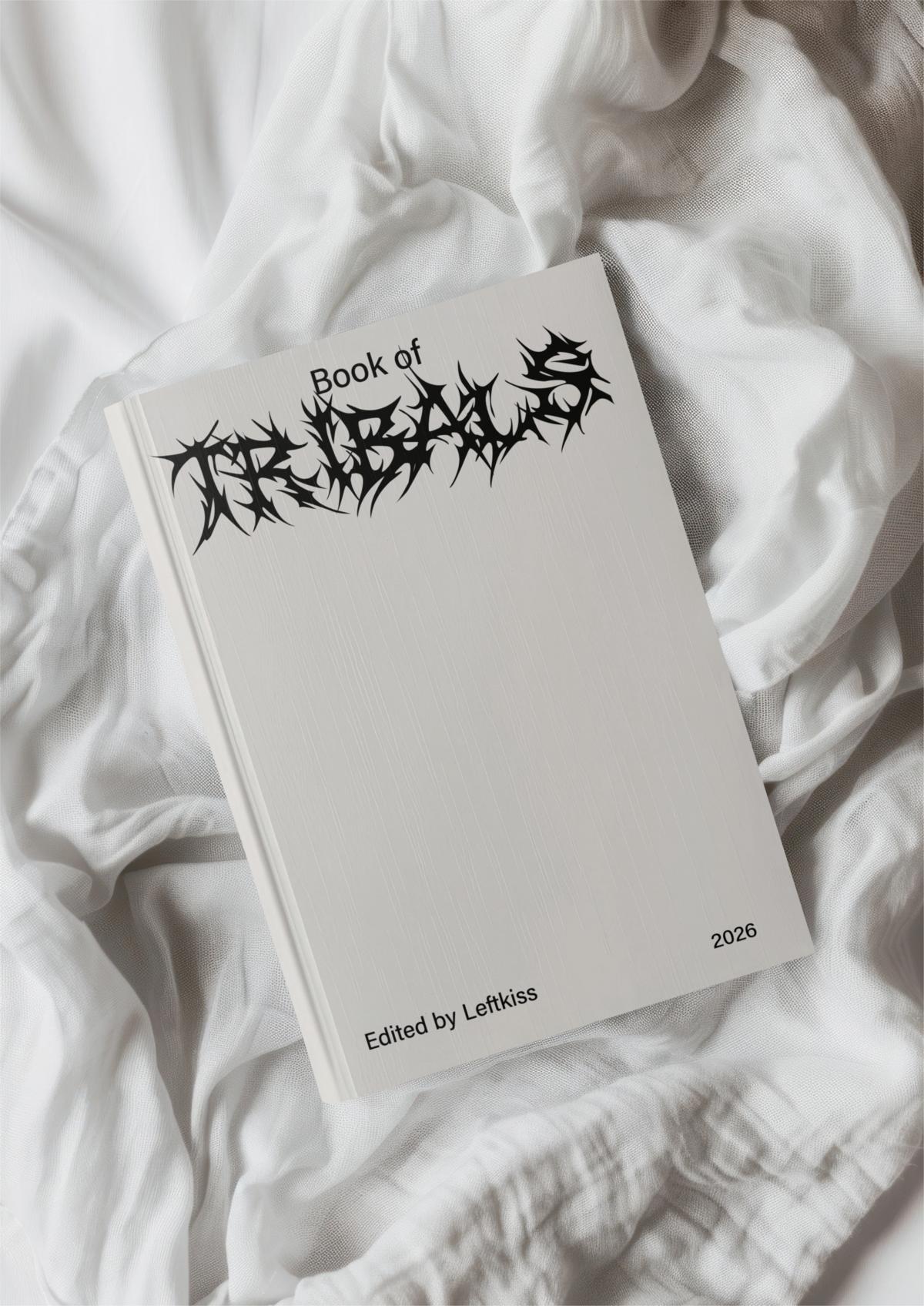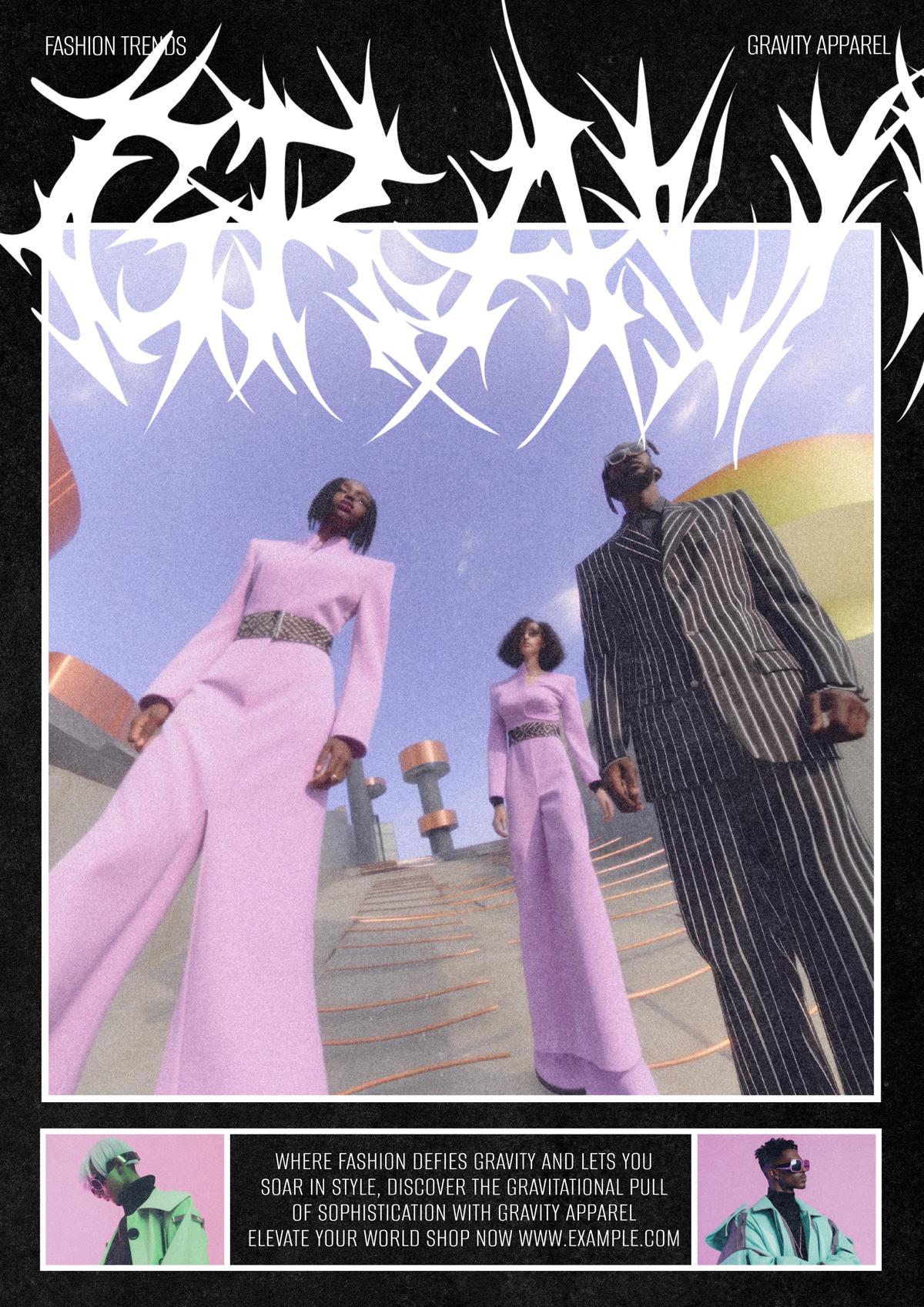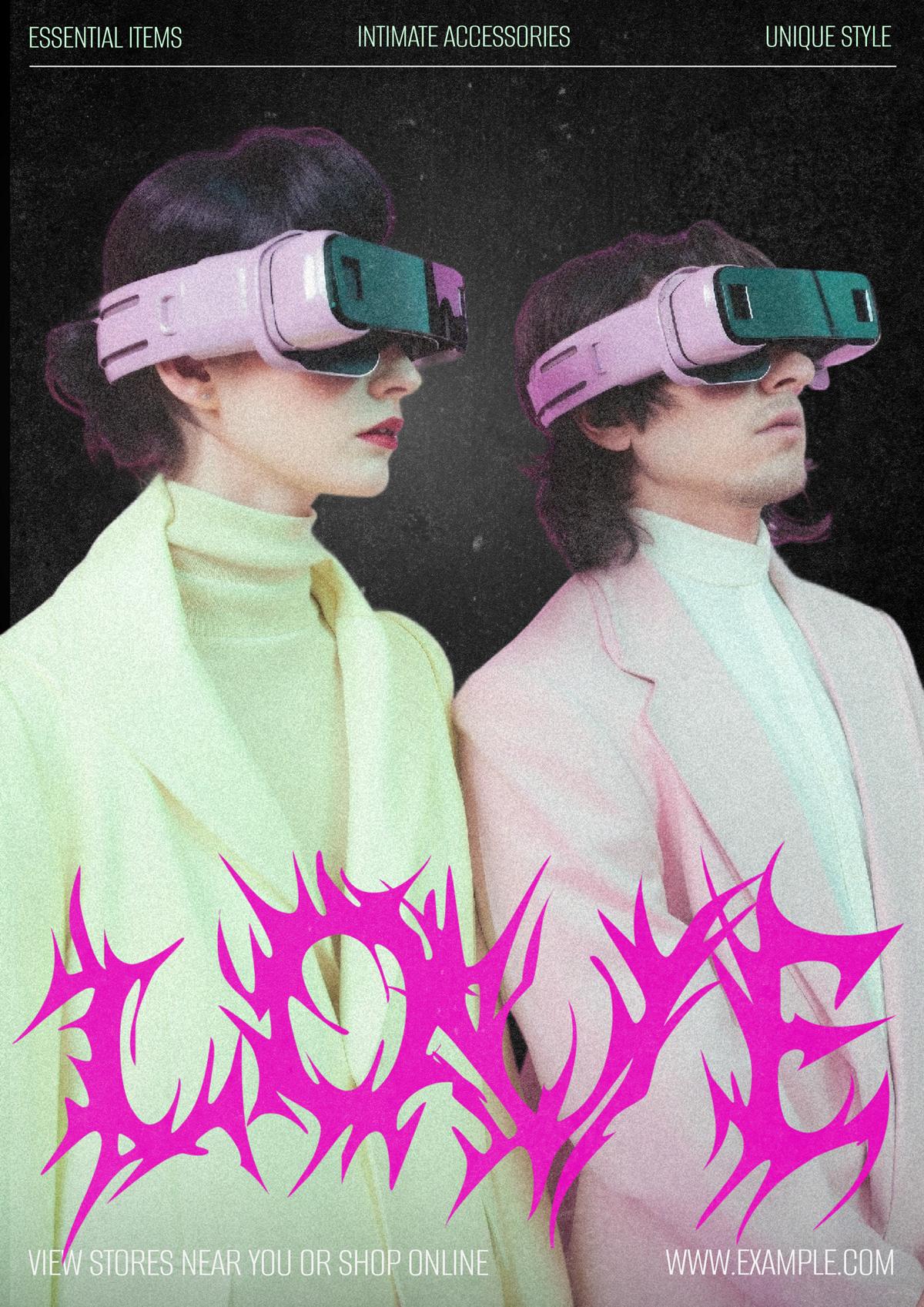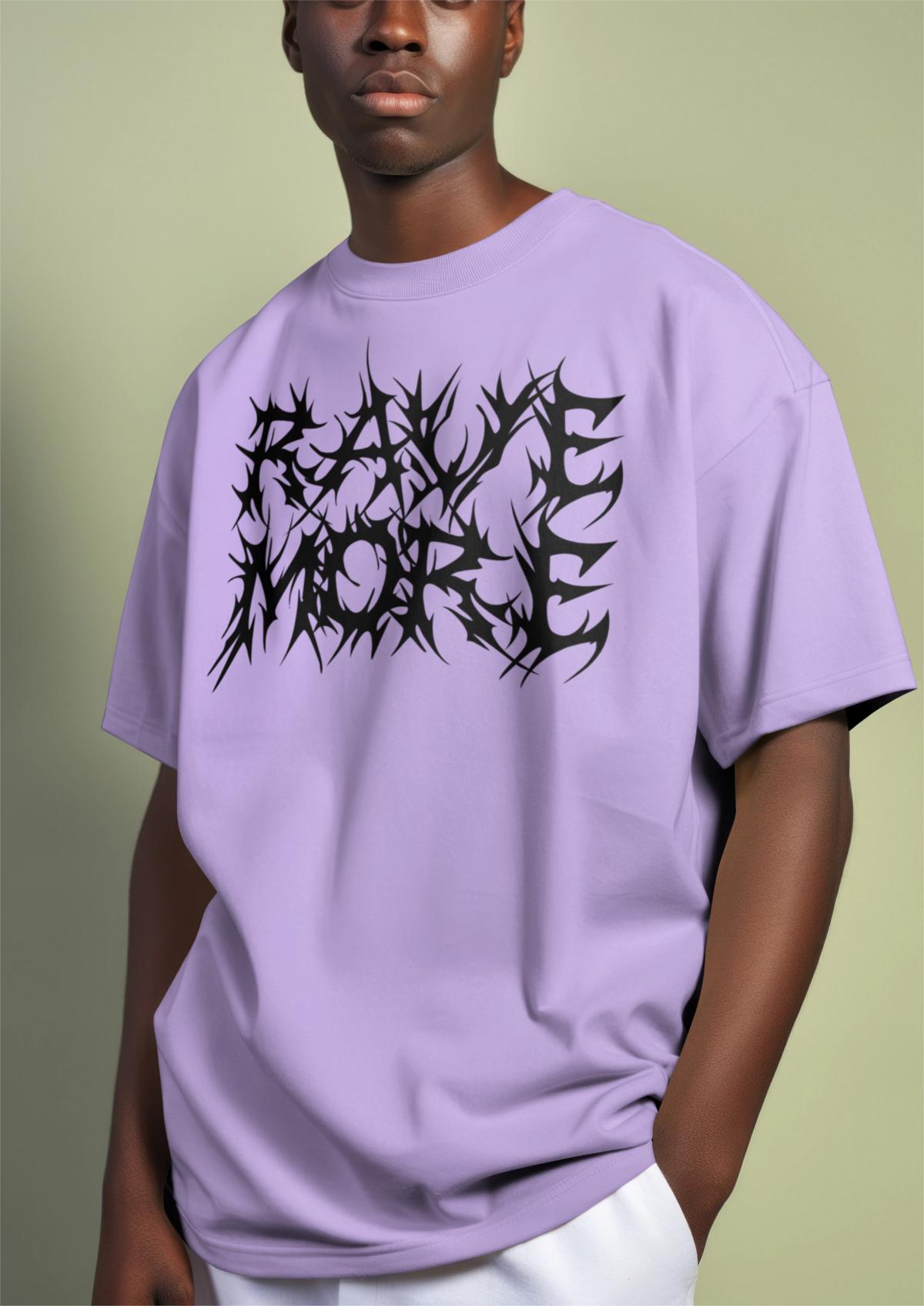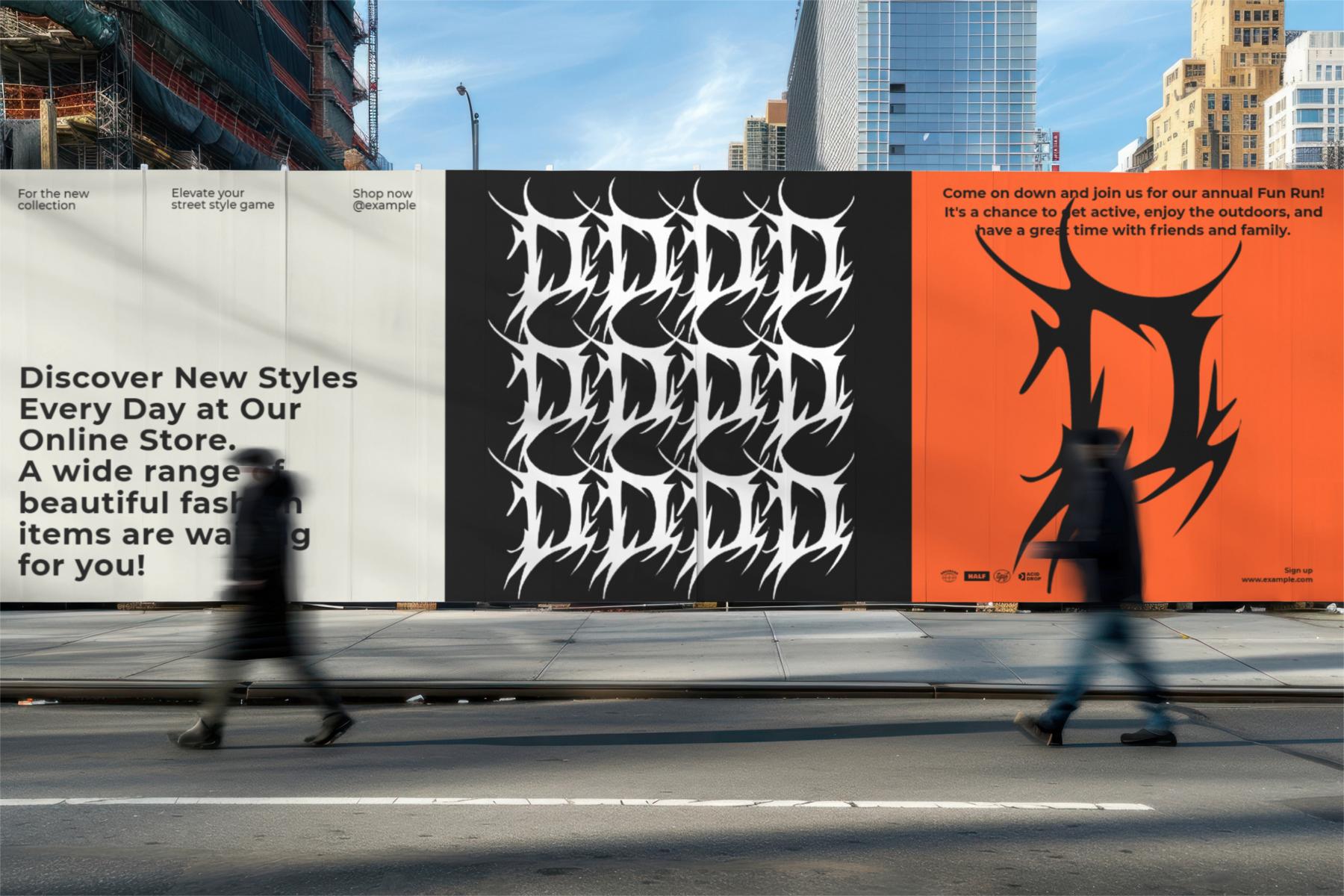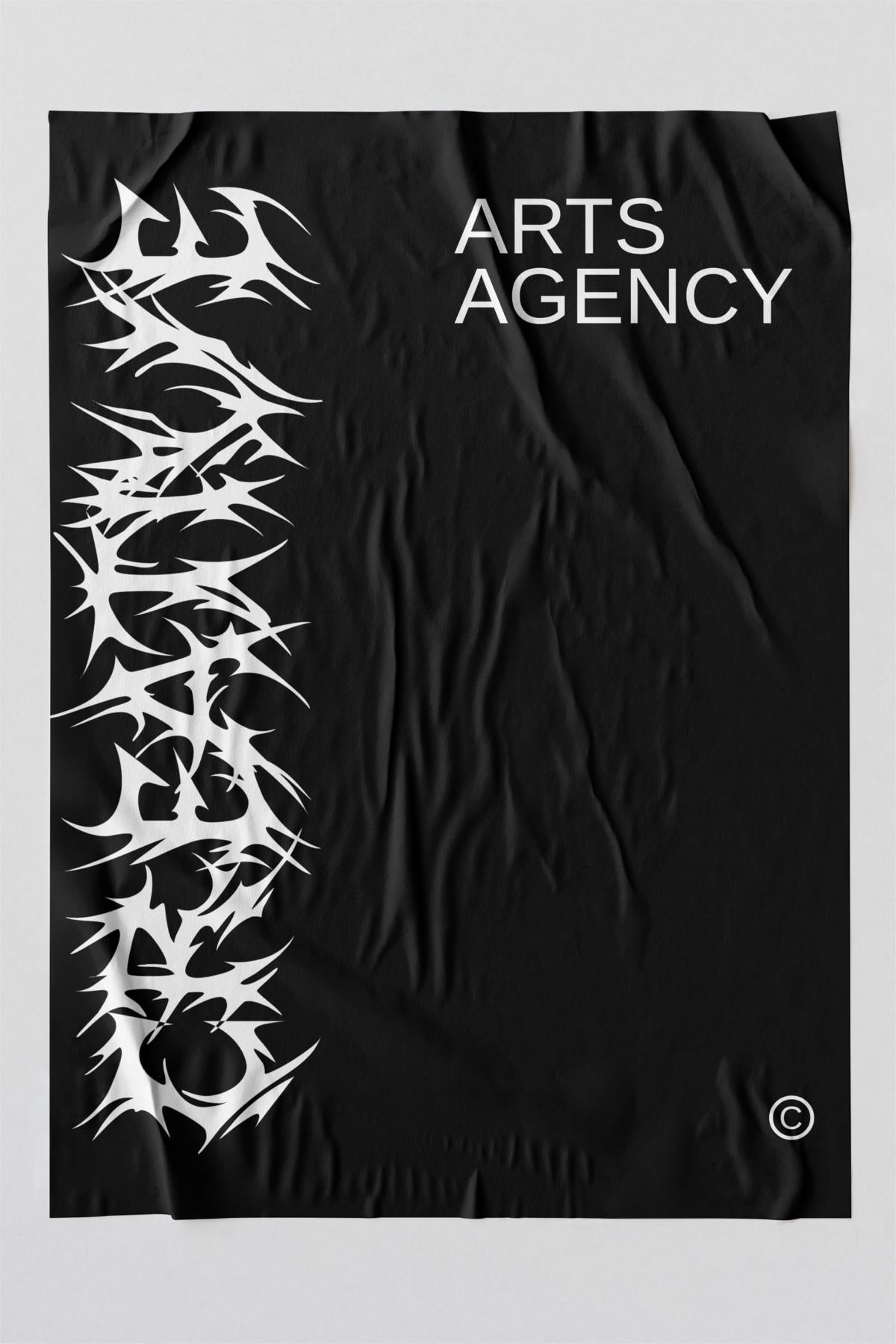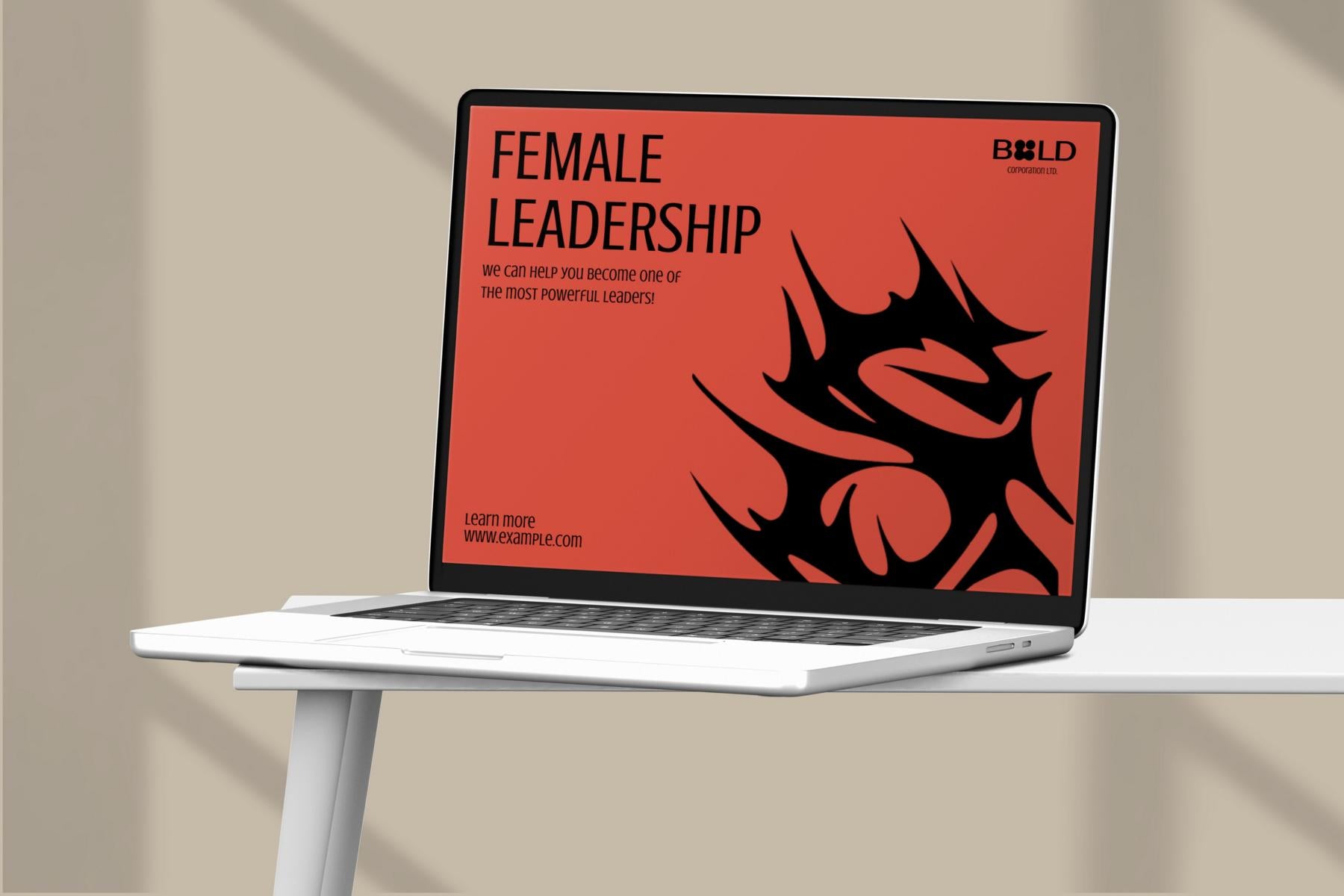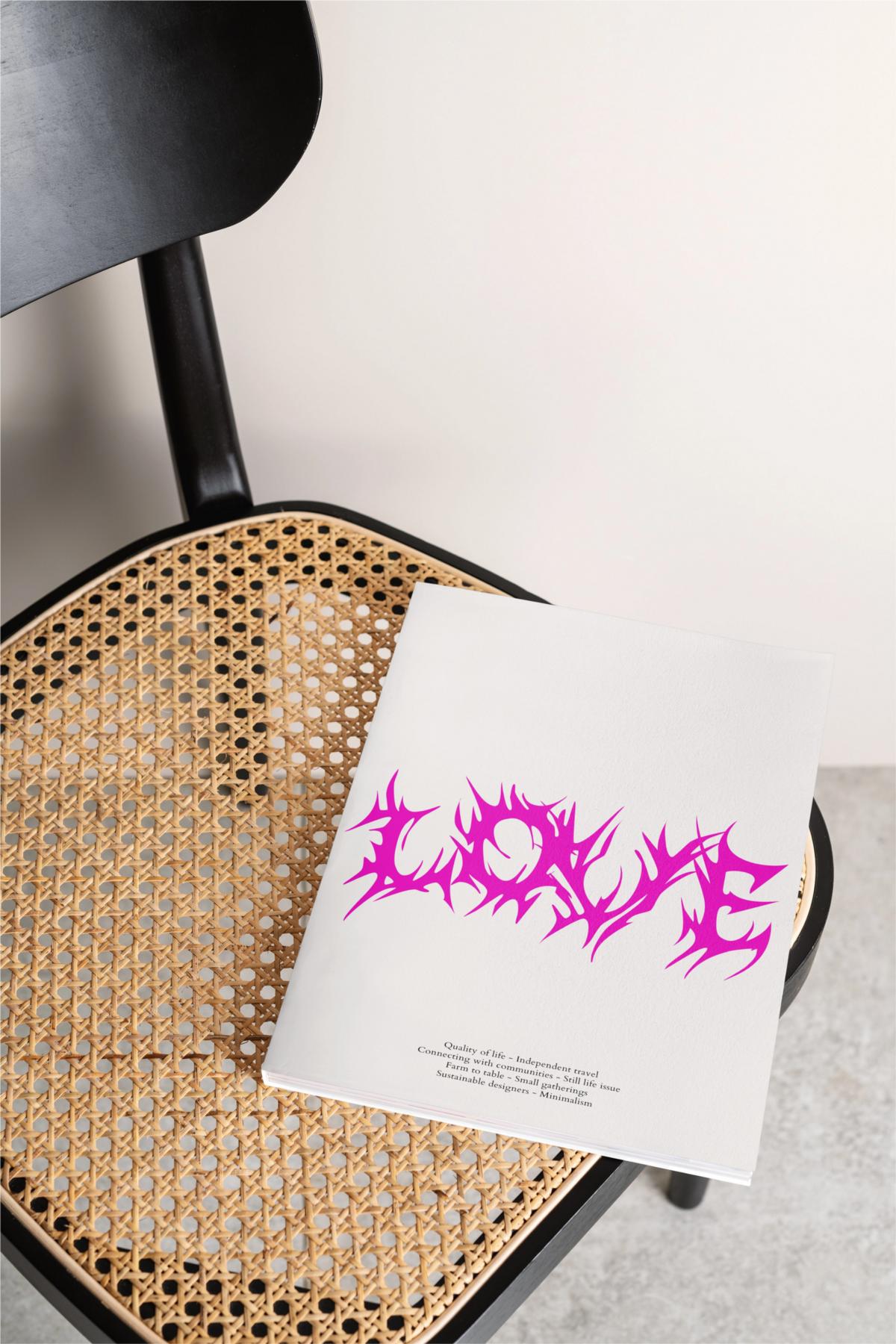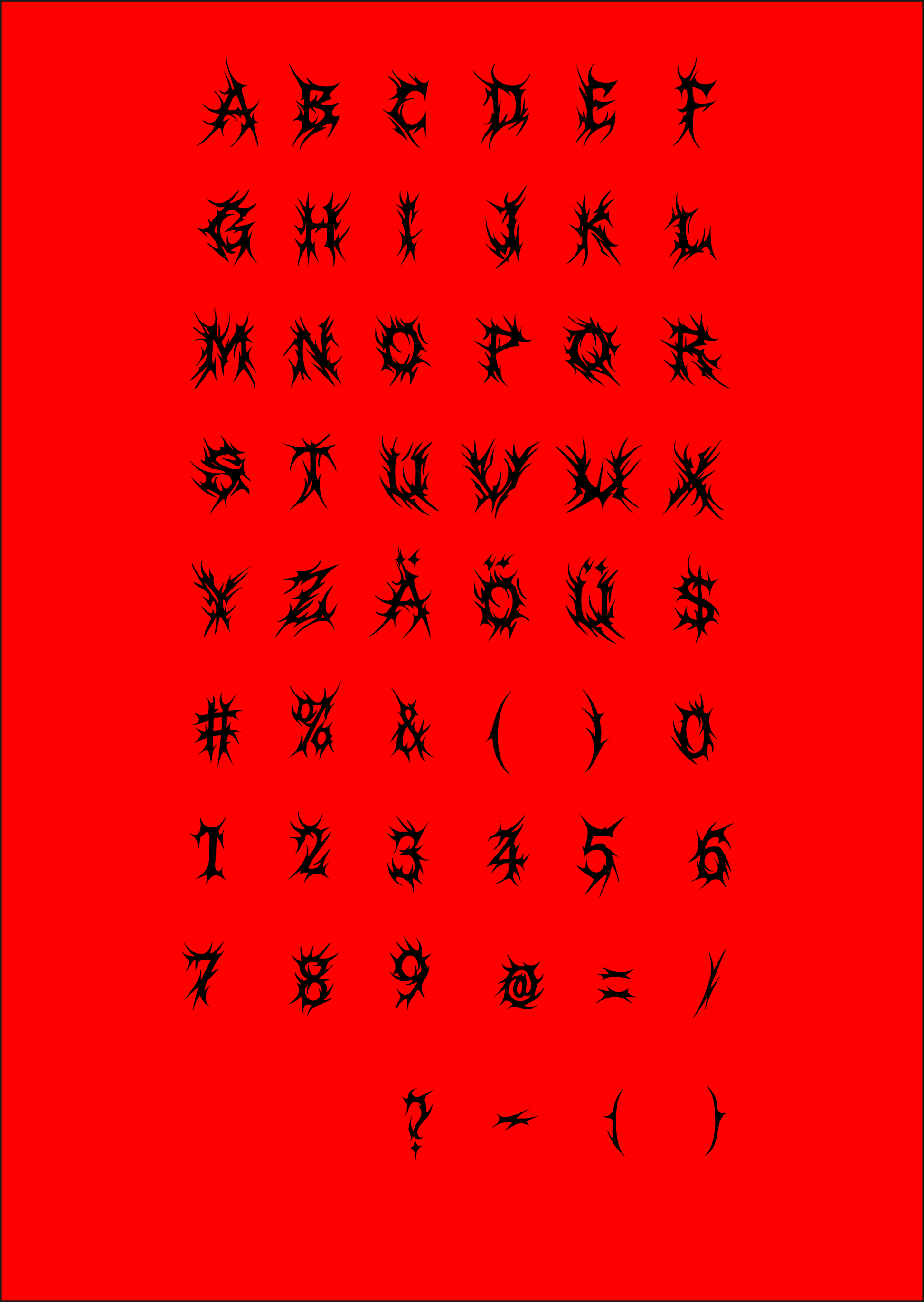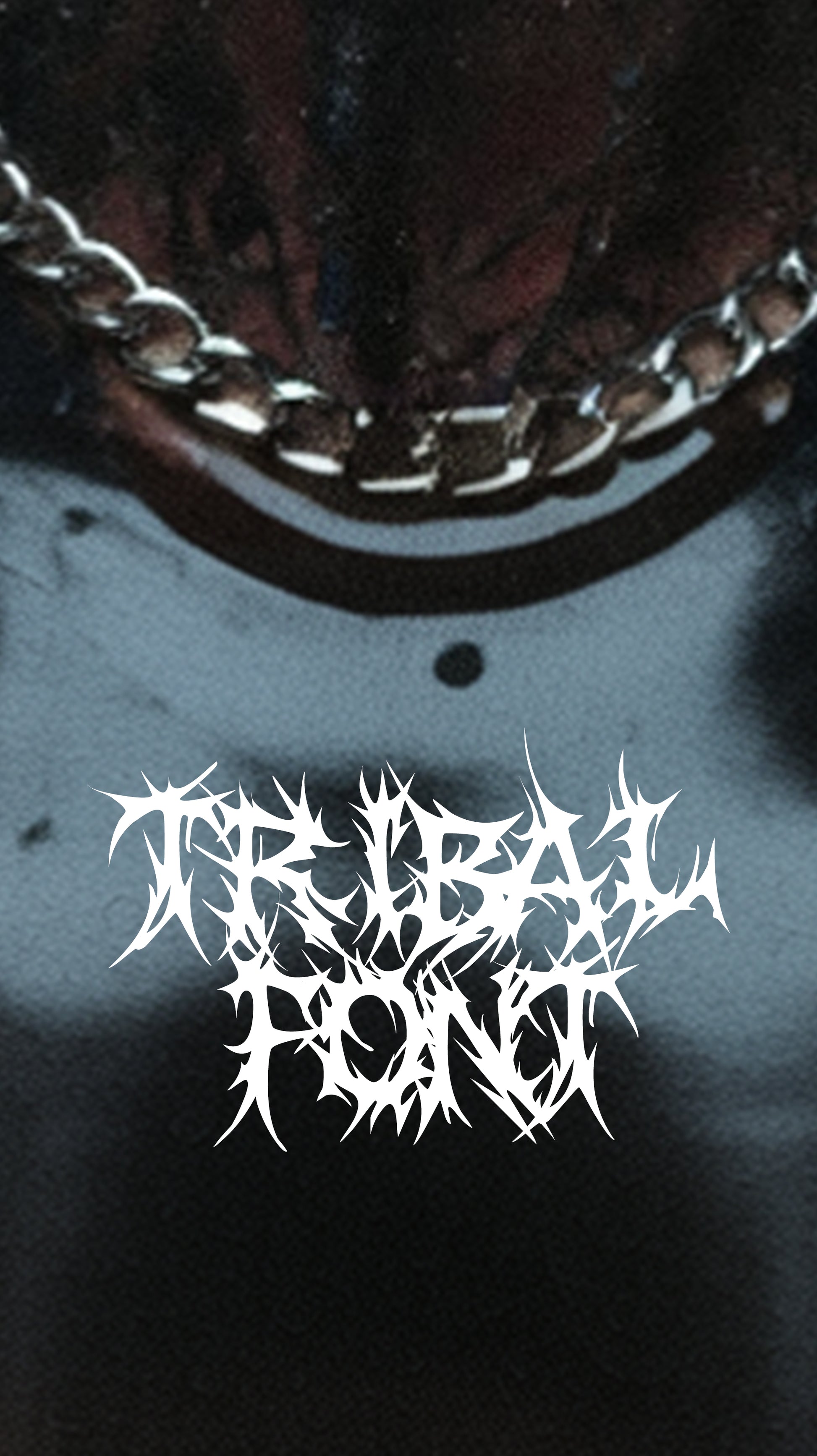
Unleash raw, primal energy with this striking tribal font. Bold patterns and angular letterforms channel ancient artistry into modern design. Perfect for brands that refuse to play it safe—command attention with every character. Whether you're crafting album covers, streetwear graphics, or fearless branding, this typeface delivers unapologetic impact. Embrace the wild side of typography and let your message roar.